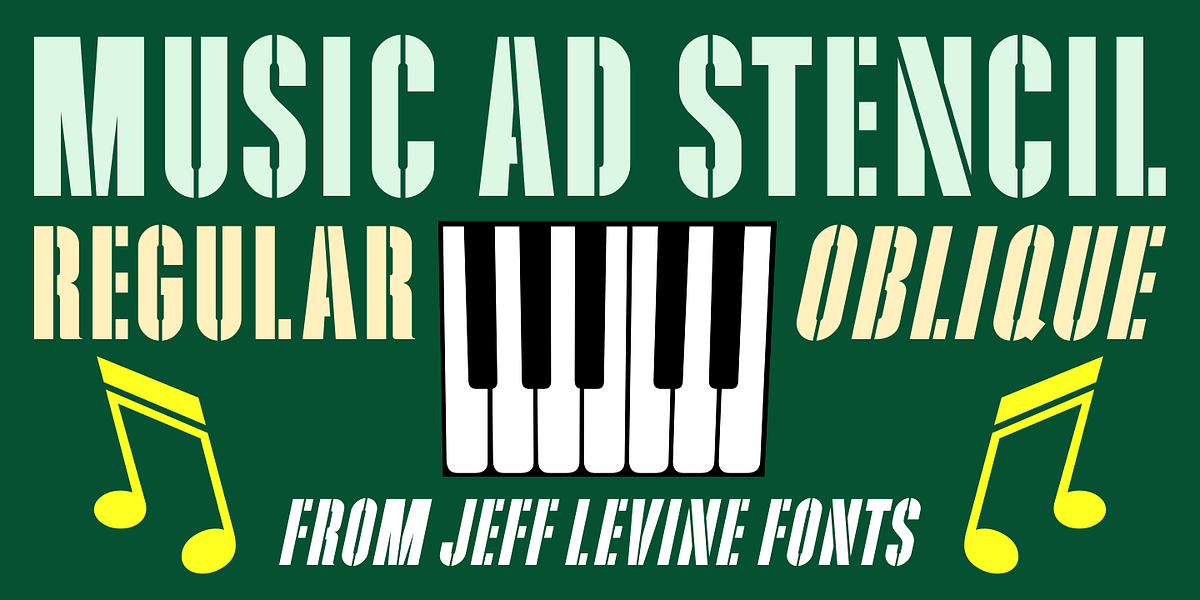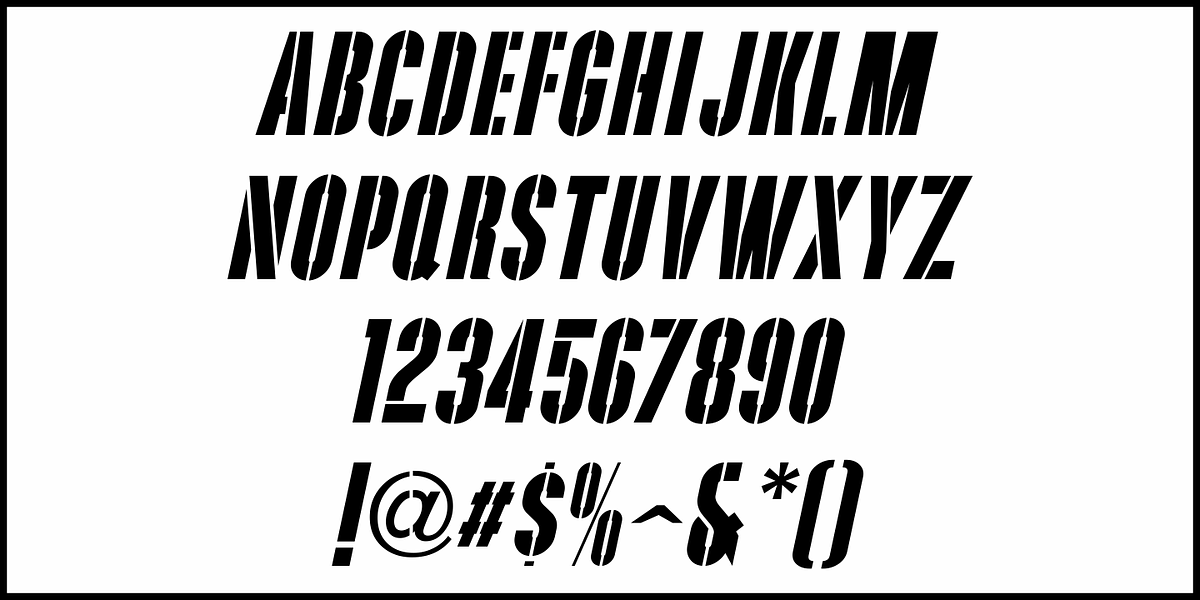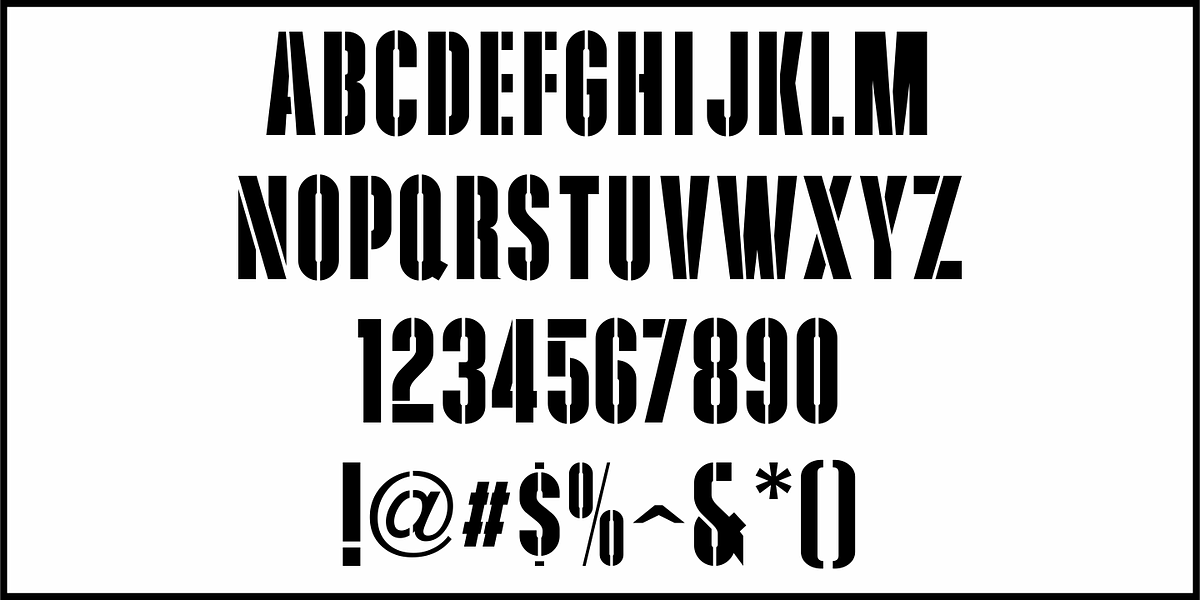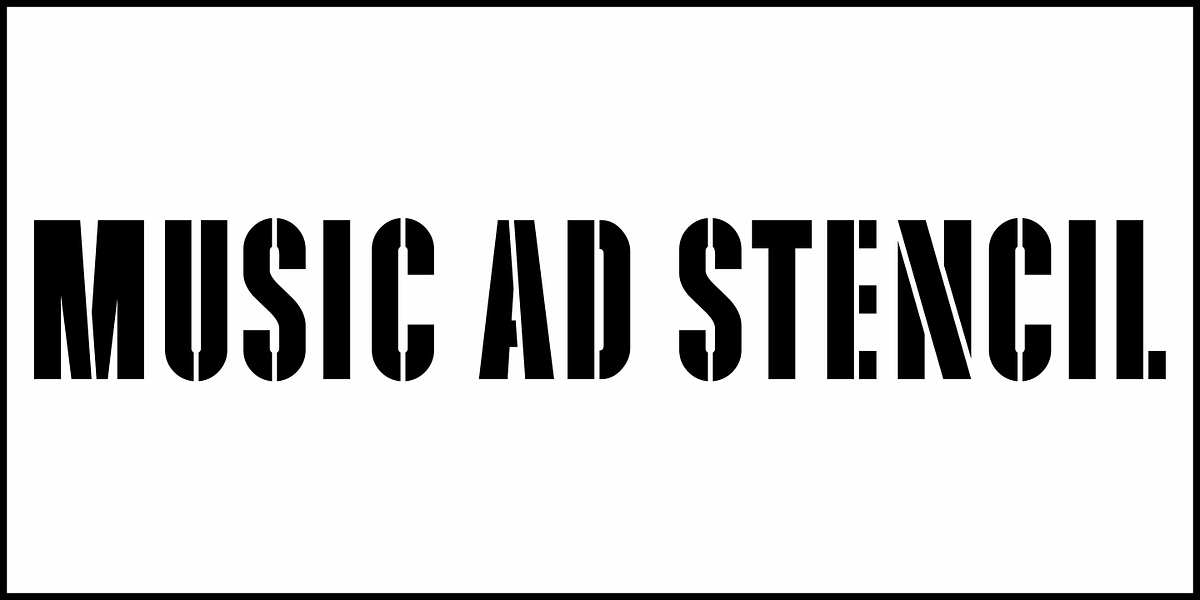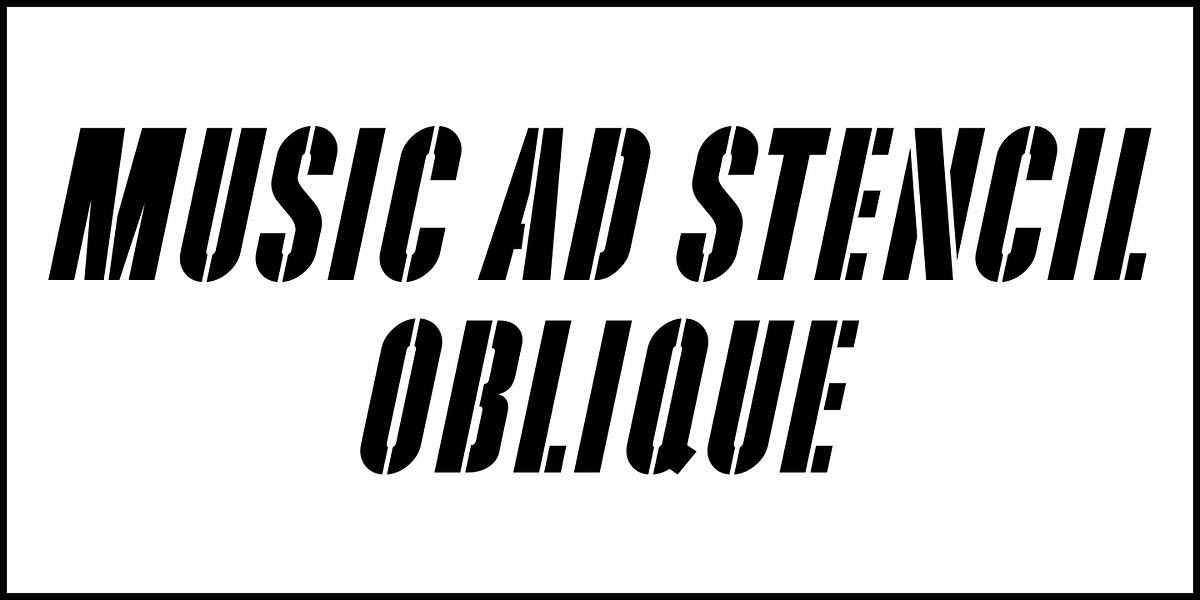
Music Ad Stencil JNL
An ad appearing in the January 5, 1952 edition of Billboard Magazine promoted the then-new releases from Capitol Records.
The headline copy was set in a bold, condensed sans serif stencil typeface. This inspired Music Ad Stencil JNL, which is available in both regular and oblique versions.